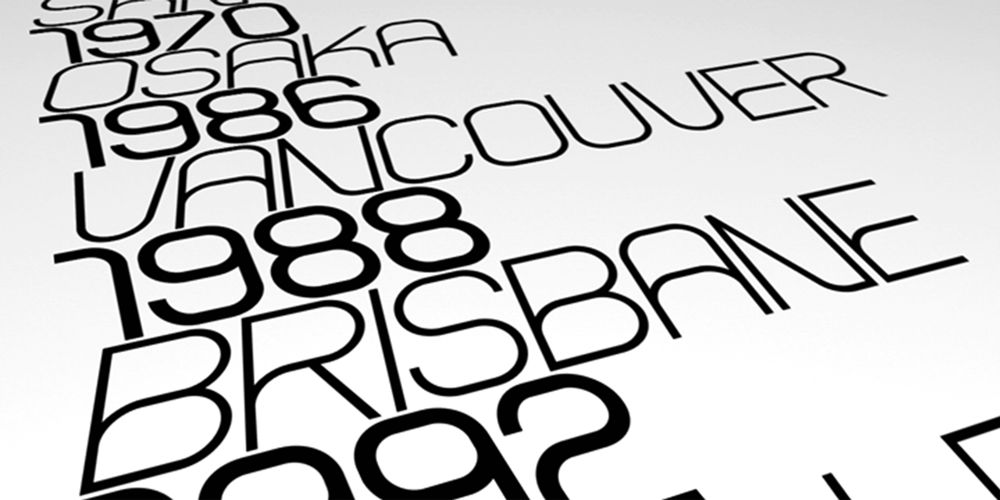
Arcle
Arcle font
Arcle Font Family was designed by Jonathan Hill and published by The Northern Block. Arcle contains 5 styles and family package options. A modern geometric typeface with precise radius detailing. Each character has it’s own unique subtleties and style variations, with careful adjustment you can create dynamic page layouts. The elegant curves are best demonstrated using the lighter weight at large scale. Details include 5 weights, a complete character set, manually edited kerning and Euro symbol.